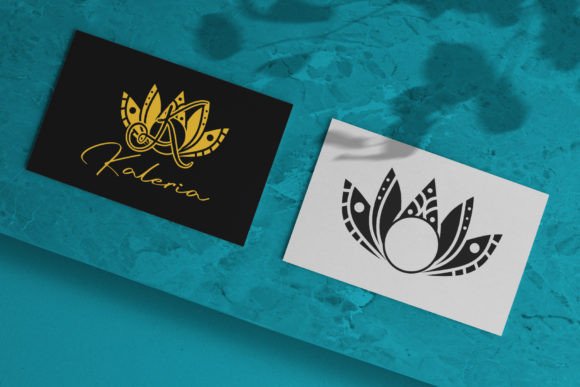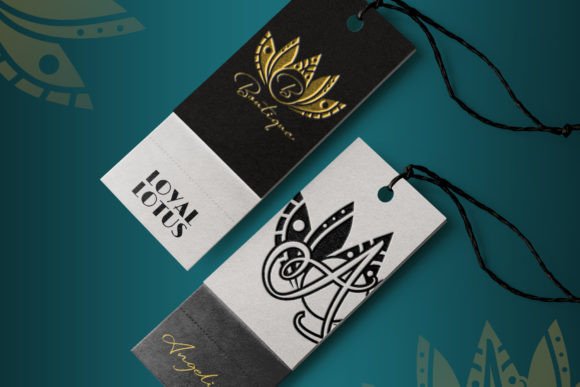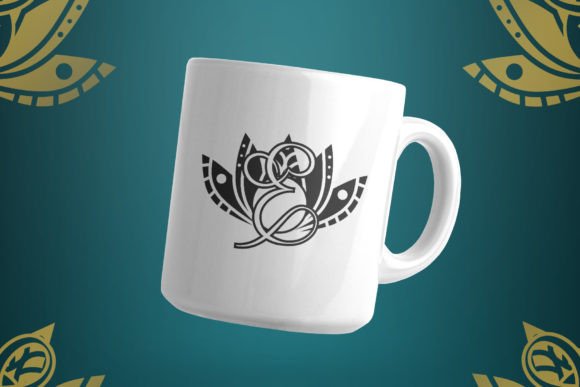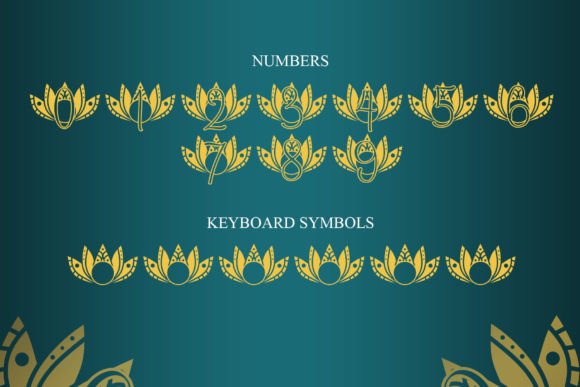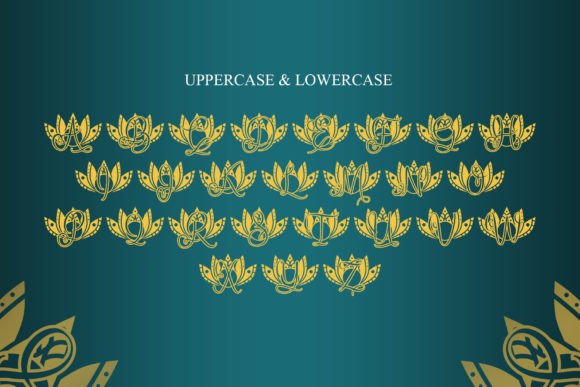
Introduction to Loyal Lotus Mandala Monogram Font
Loyal Lotus Mandala Monogram is a unique and stylish decorative font inspired by the elegance of the lotus flower.
Use it for your craft, logo, or anything you can think of .